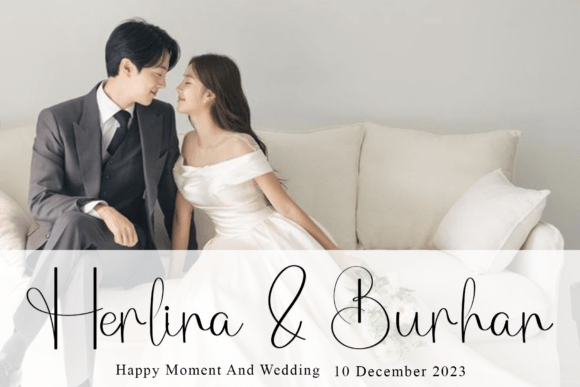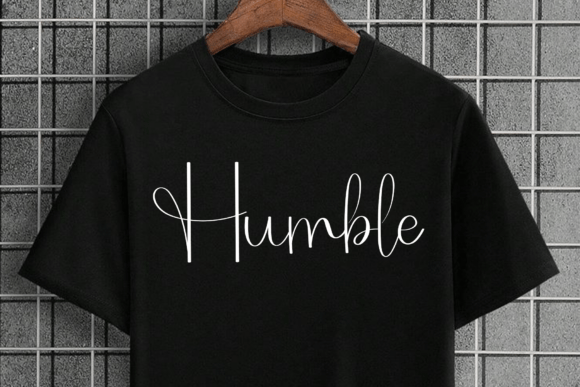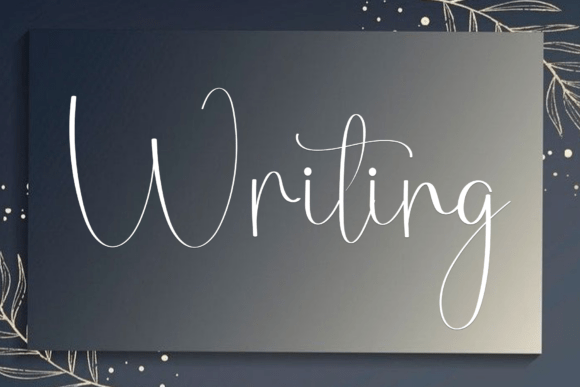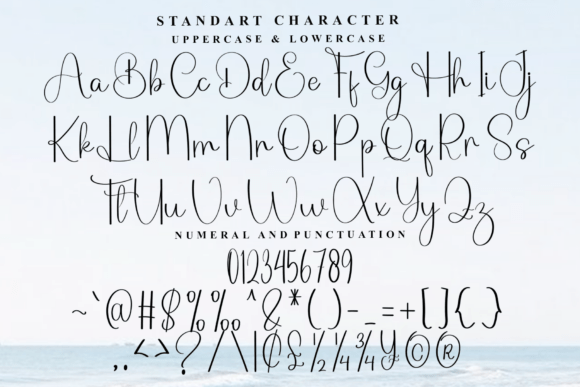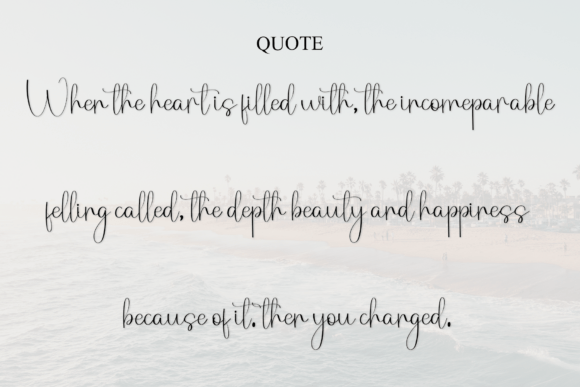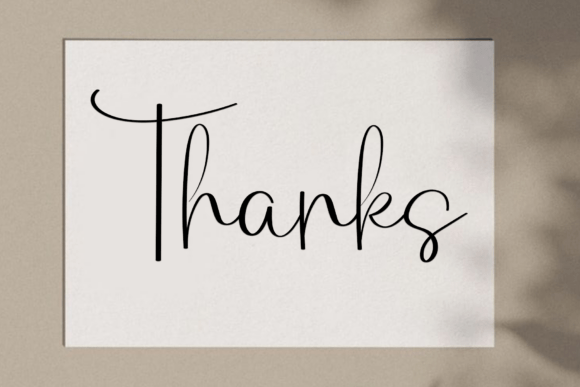
Dubbing Font: A Lovely and Timeless Handwritten Font for Designers and Crafters
Are you a designer or crafter looking for a unique and beautiful font to make your designs stand out? Look no further than Dubbing Font! This lovely and timeless handwritten font is perfect for creating eye-catching logos, branding, and quotes that will leave a lasting impression on your audience.
What Makes Dubbing Font So Special?
Dubbing Font is a one-of-a-kind font that boasts a unique and beautiful touch. Every letter has been carefully crafted to ensure that it stands out from the rest, making it perfect for designers and crafters who want to add a personal touch to their designs. Whether you’re creating a logo, branding materials, or quotes, Dubbing Font is the perfect choice.
The Characteristics of Dubbing Font
Dubbing Font is a handwritten font that exudes elegance and sophistication. Its characteristics include:
- Unique and beautiful touch: Every letter has a distinct and beautiful touch that sets it apart from other fonts.
- Handwritten style: Dubbing Font has a classic handwritten style that adds a personal touch to any design.
- Timeless appeal: This font is timeless and will not go out of style anytime soon, making it a great investment for designers and crafters.
- Elegant and sophisticated: Dubbing Font is perfect for designs that require an elegant and sophisticated touch.
Why Choose Dubbing Font?
There are many reasons why designers and crafters choose Dubbing Font for their designs. Here are a few:
- Eye-catching designs: Dubbing Font is perfect for creating eye-catching logos, branding, and quotes that will grab the attention of your audience.
- Unique designs: With Dubbing Font, you can create unique designs that stand out from the rest.
- Easy to read: Despite its unique and beautiful touch, Dubbing Font is easy to read, making it perfect for designs that require a clear and concise message.
- Versatile: Dubbing Font can be used for a wide range of designs, from logos and branding to quotes and social media graphics.
How to Use Dubbing Font
Using Dubbing Font is easy! Here are a few tips to get you started:
- Logos and branding: Use Dubbing Font to create unique and eye-catching logos and branding materials that will set your business apart.
- Quotes and social media graphics: Use Dubbing Font to create inspiring quotes and social media graphics that will engage your audience.
- Invitations and cards: Use Dubbing Font to create beautiful invitations and cards that will make a lasting impression on your recipients.
Here are a few tips for designers and crafters who want to get the most out of Dubbing Font:
- Experiment with different colors: Dubbing Font looks great in a variety of colors, so don’t be afraid to experiment and find the perfect color for your design.
- Play with different sizes: Dubbing Font can be used in a variety of sizes, from small and delicate to large and bold.
- Pair with other fonts: Dubbing Font pairs well with other fonts, so feel free to experiment and find the perfect combination for your design.
Dubbing Font is a lovely and timeless handwritten font that is perfect for designers and crafters who want to create eye-catching logos, branding, and quotes. With its unique and beautiful touch, Dubbing Font is sure to make your designs stand out from the rest. Whether you’re a seasoned designer or just starting out, Dubbing Font is a great choice for any design project.